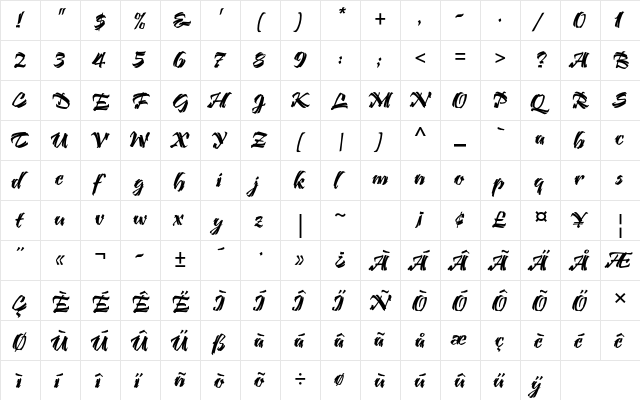
Bendigo Std Regular
| Designer | Phill Grimshaw |
Design Context for Bendigo Std Typeface
Bendigo Std is a composed and adaptable typeface that performs quietly and consistently across a wide range of design contexts.